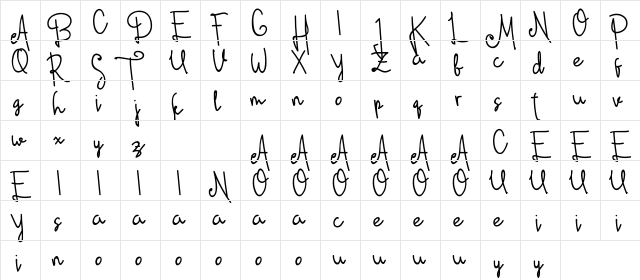
Dianamoon Script Regular
| Foundry | Yantodesign Studio Co. |
| Designer | Joko Triwijayanto |
Design Context for Dianamoon Script Typeface
Dianamoon Script brings a calligraphic fluidity to the page — its connecting strokes and expressive curves give it an unmistakably human quality.